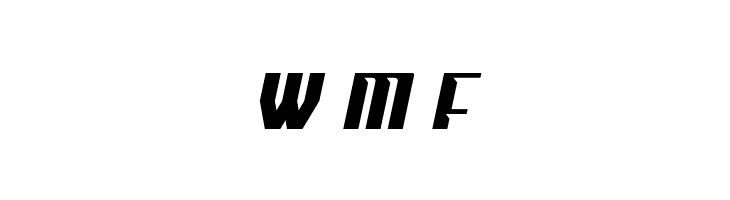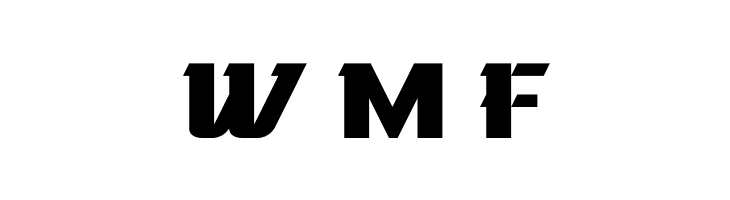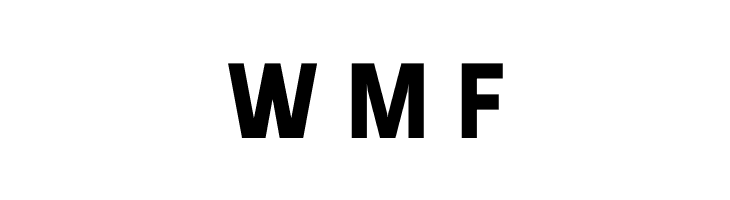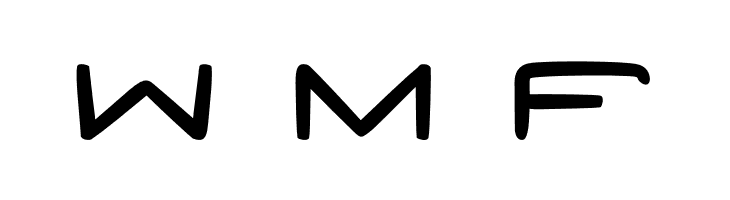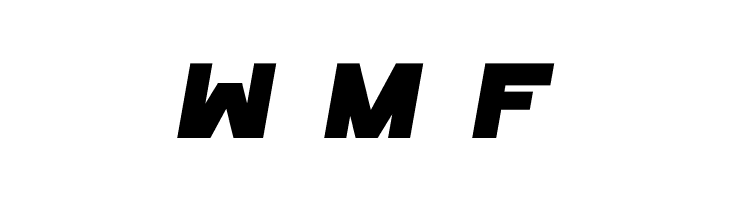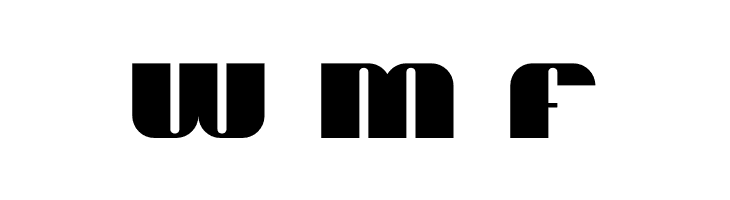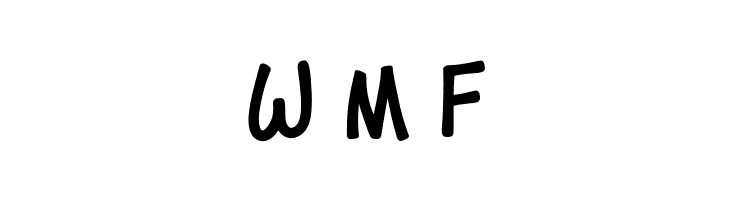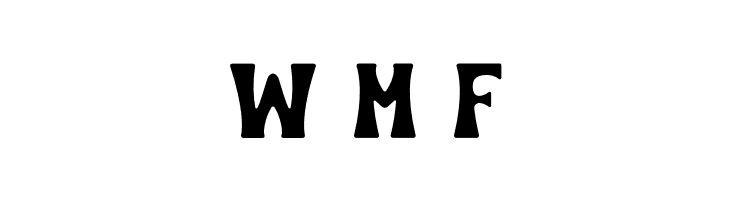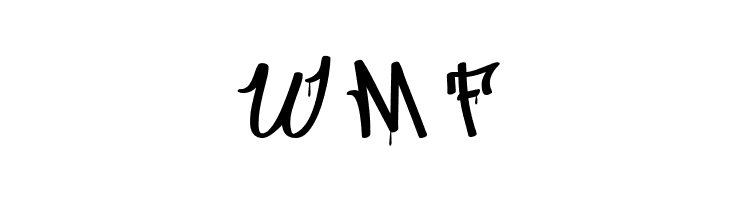
A bold, rounded font with a playful and friendly style.
A bold, textured font with a vintage, handcrafted look.
A whimsical and decorative font with intricate curls and swirls.
A bold, decorative font with intricate swirls and high contrast, perfect for artistic projects.
A bold, decorative font with ornate swirls and high contrast.
A bold, italic, and angular font with a dynamic and energetic style.
A bold, geometric font with angular cuts, perfect for modern and impactful designs.
A bold, geometric monogram font with sharp angles and industrial flair.
A bold, graffiti-inspired font with sharp, angular lines and dynamic flow.
A bold, playful handwritten font with thick strokes and rounded edges.
A bold, angular font with a shadow effect, combining Gothic influences with modern design.
A bold, rounded, and playful font with a retro-modern style.
A bold, flowing script font with elegant curves and loops.
A bold, geometric font with sharp edges and a blocky style.
A thin, elegant script font with flowing, cursive strokes.
A bold, sans-serif font with a strong, modern look.
A bold, playful, handwritten-style font with rounded characters.
A futuristic, geometric font with rounded edges and consistent stroke width.
A bold, geometric font with a futuristic and edgy style.
A bold, modern sans-serif font with strong, uniform strokes.
A geometric, angular font with a wireframe appearance and thin strokes.
A geometric, futuristic font with bold, angular lines and a layered appearance.
A bold, modern display typeface with thick, blocky letters and high contrast.
A bold, athletic font with a classic varsity style.
A bold, playful handwritten font with rounded edges and a whimsical touch.
A dynamic and elegant script font with high contrast and flowing letterforms.
A decorative, abstract font with tribal and geometric influences.
A playful, bold, handwritten font with a comic-like style.
A bold, edgy font with a hand-drawn, grunge-like appearance.
A bold, rounded font with a playful and modern style.
A bold, playful font with rounded characters and a whimsical touch.
A lively, handwritten font with fluid, dynamic strokes and a casual, informal style.
Playful handwritten font with rounded edges.